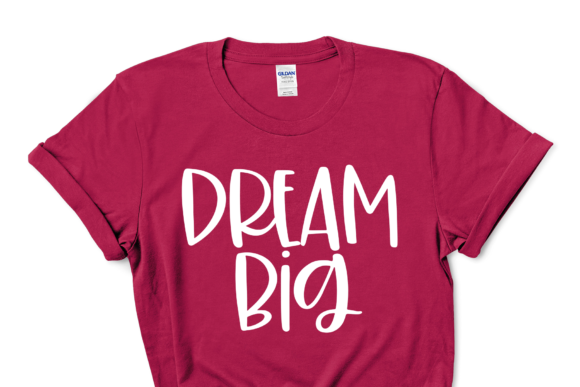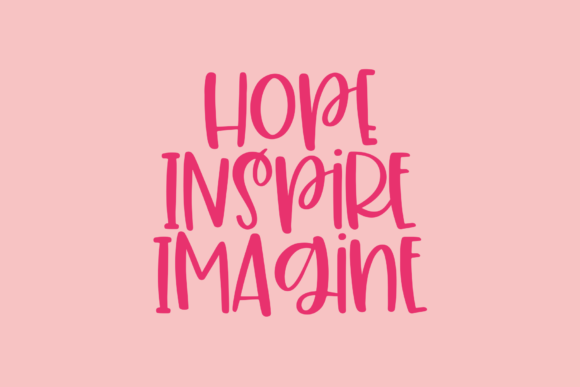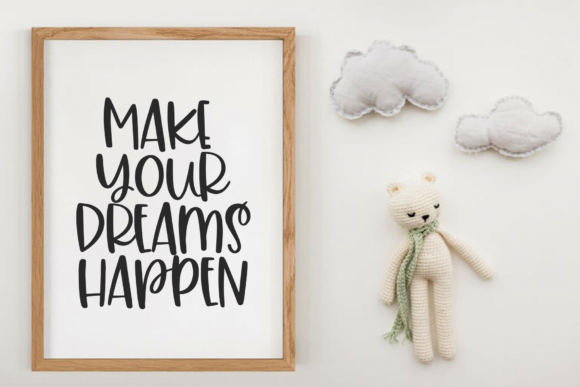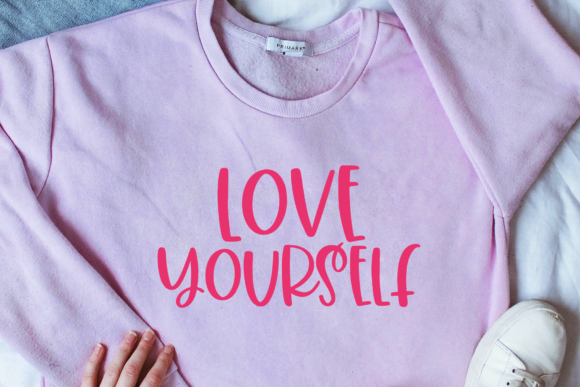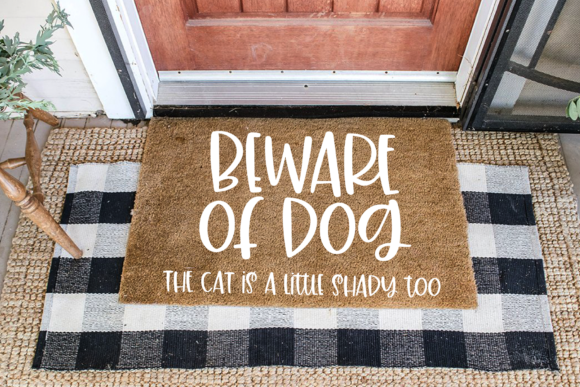
South Shore embodies fun, quirkiness and authenticity. This enchanting display font will turn any creative idea into a true standout.
South Shore Font